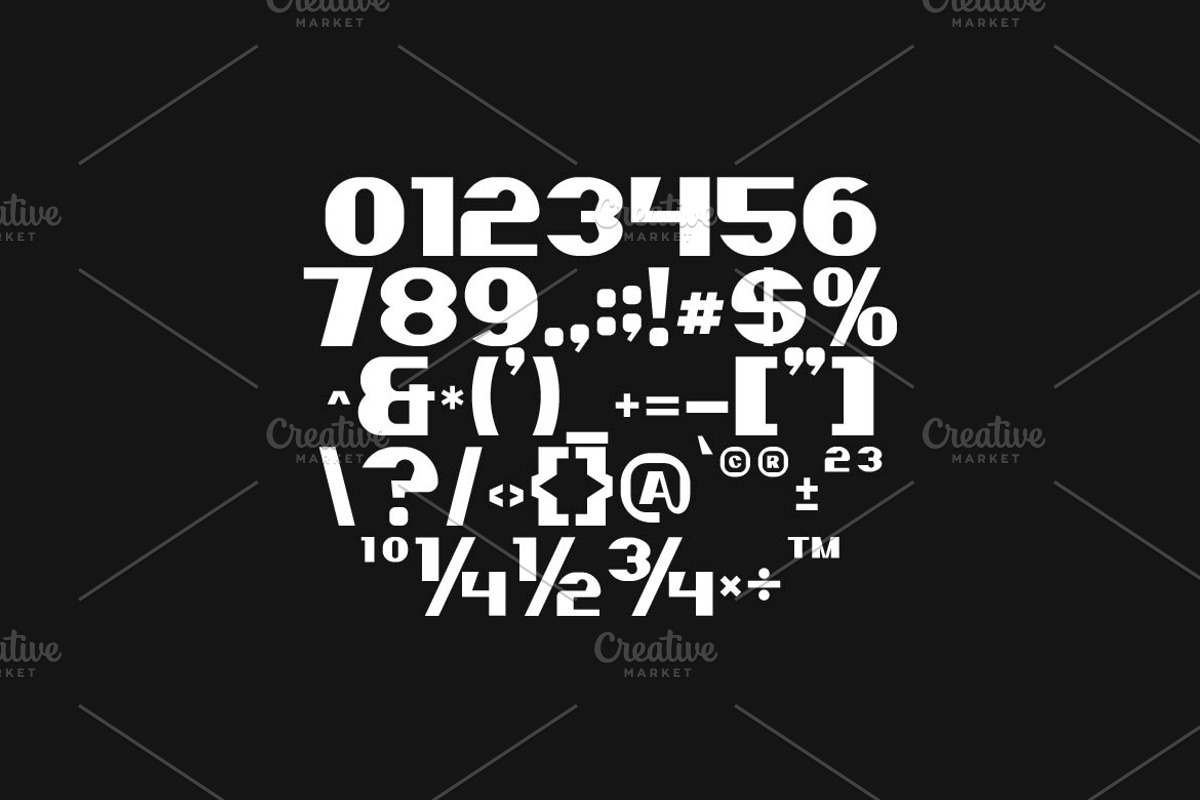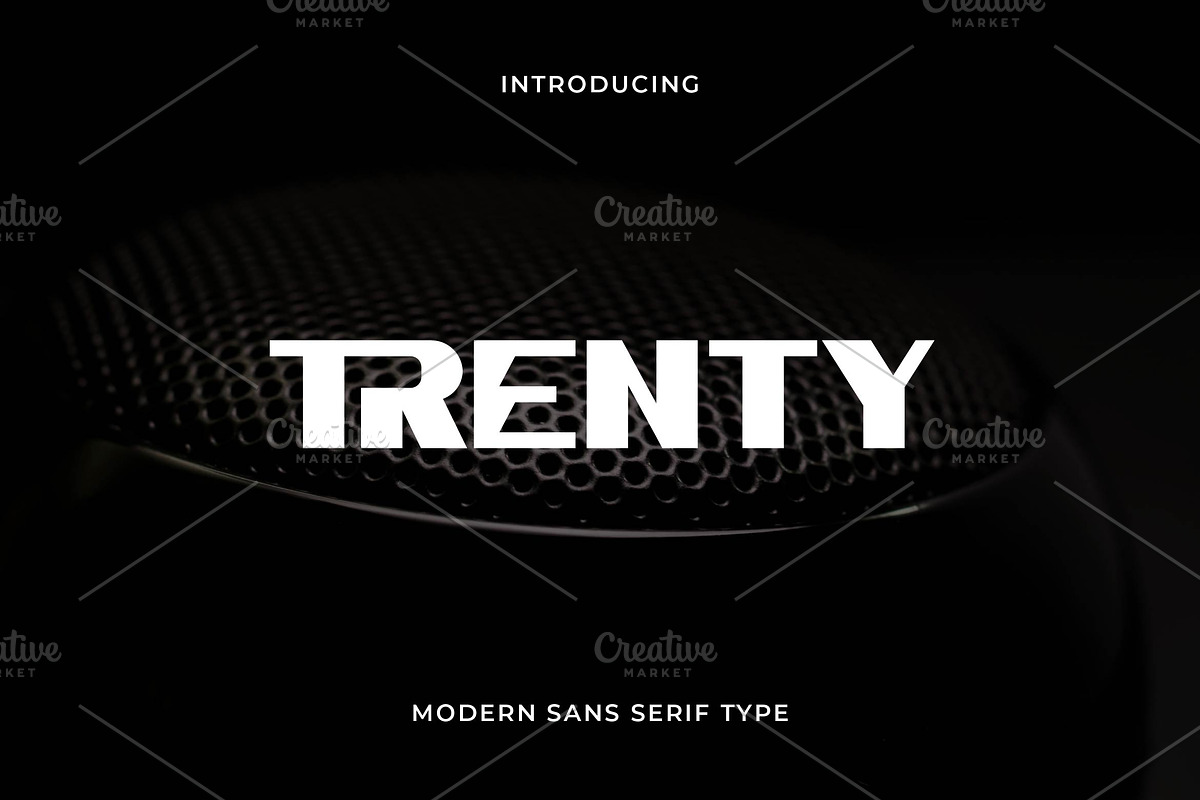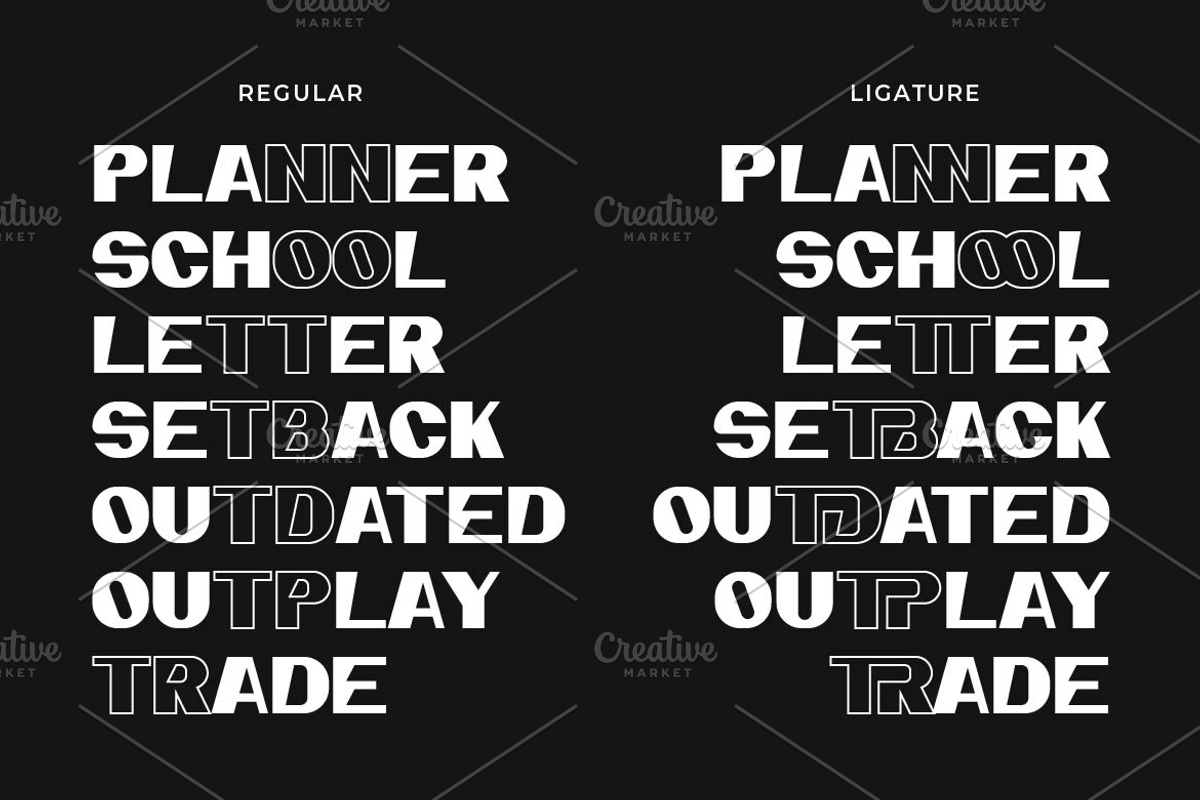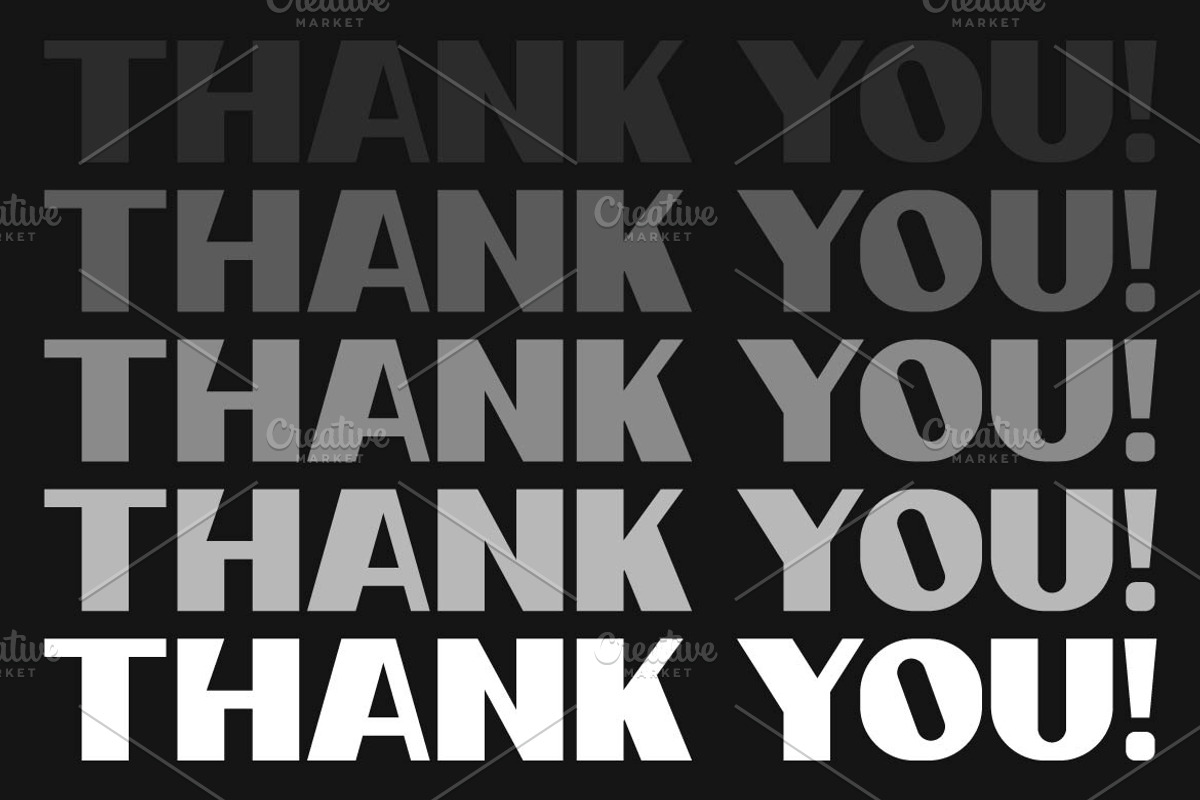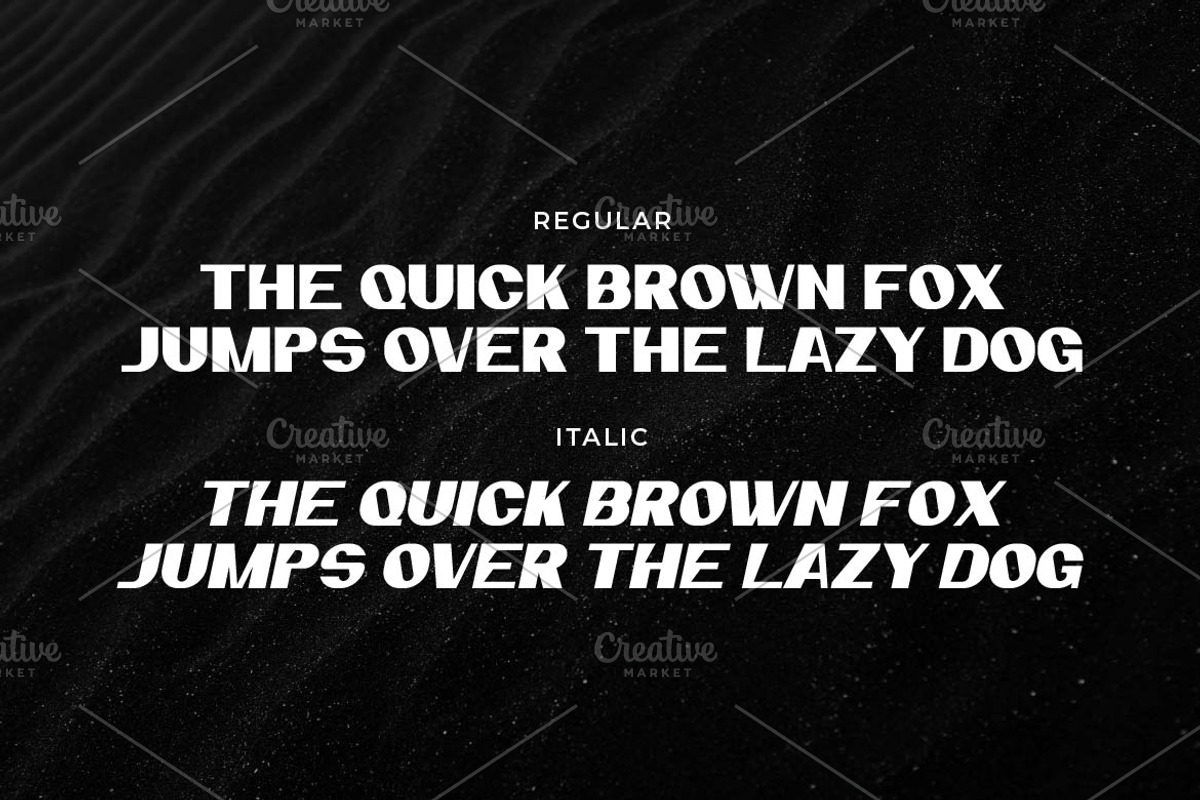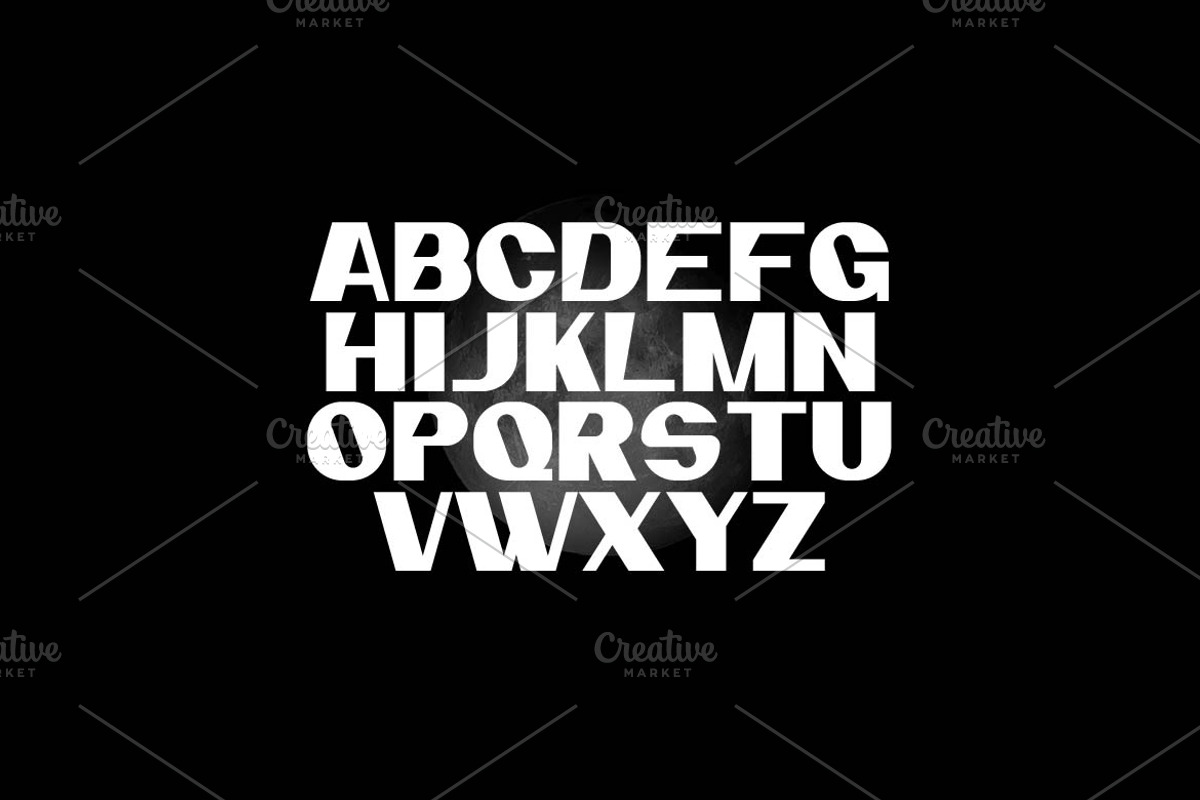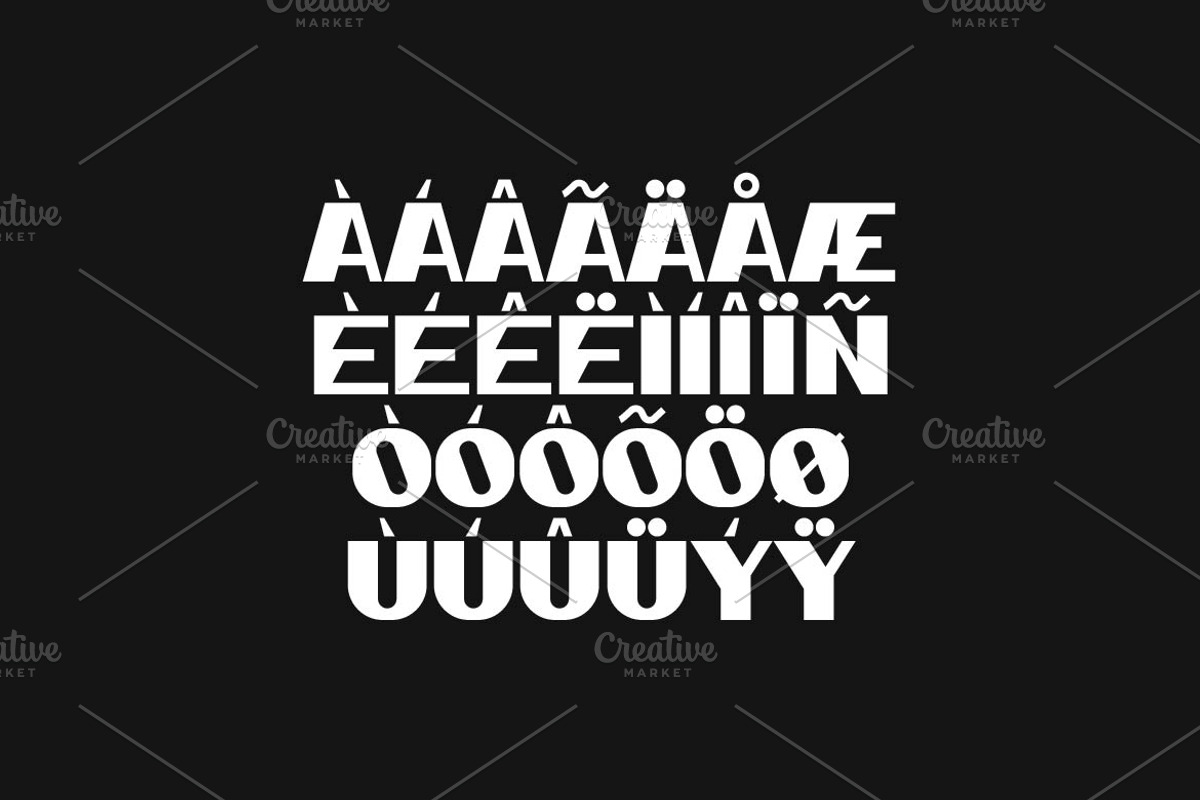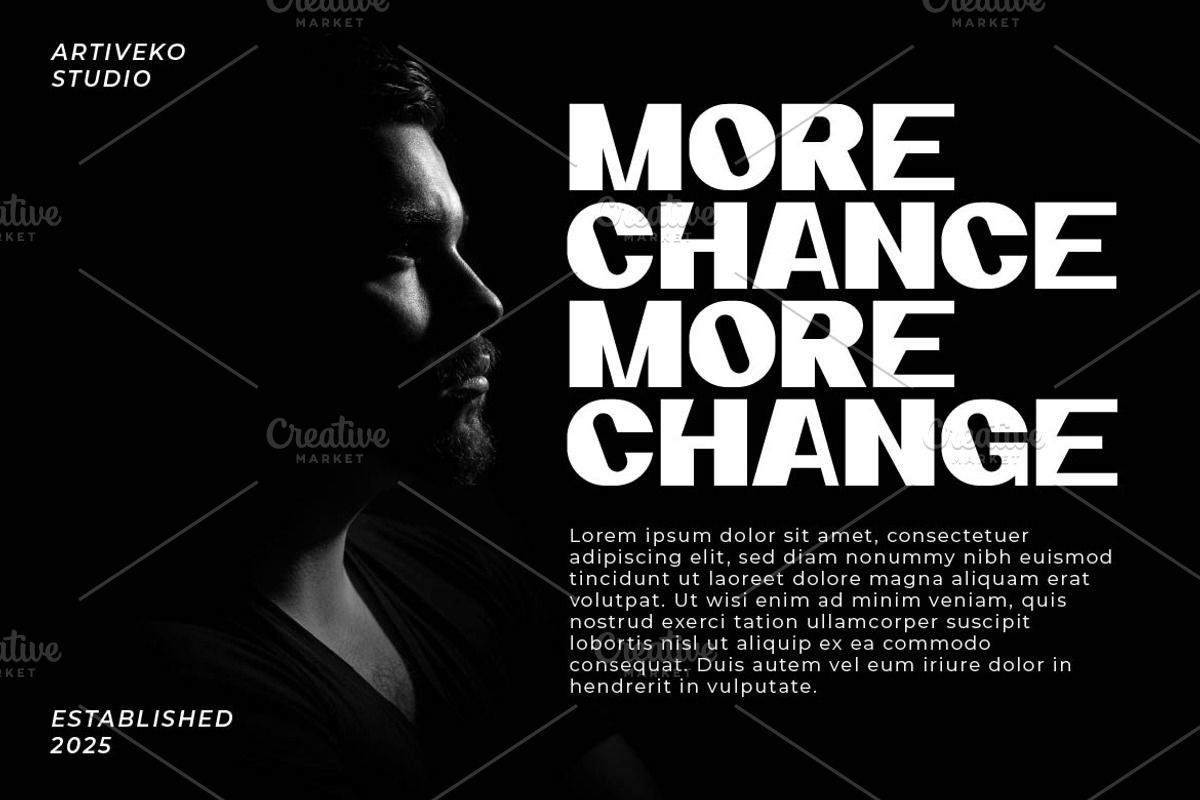
Trenty Display Logo Font
Trenty is a bold and strong display sans serif font crafted to make a statement. With thick strokes and assertive shapes, it’s perfect for headlines, posters, branding, and modern advertising. Equipped with multilingual support, ligatures, and alternates, Trenty brings power and style to designs that demand attention and impact.